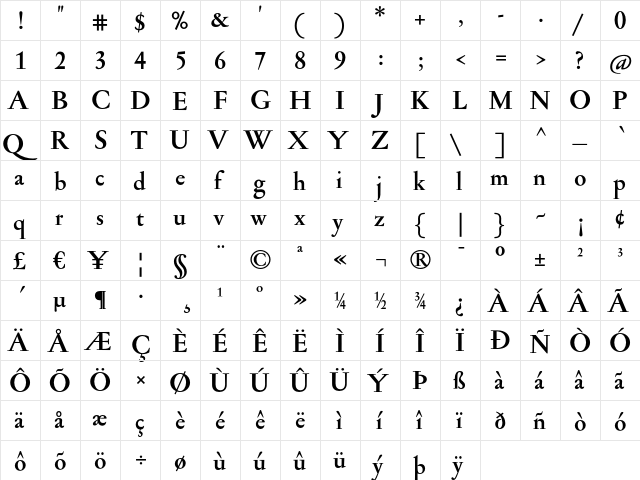
Jannon Ant Bold
| Foundry | Frantisek Storm, stormtype.com |
Design Context for Jannon Ant Typeface
Jannon Ant is a composed and adaptable typeface that performs quietly and consistently across a wide range of design contexts. The heavy weight commands attention and anchors typographic hierarchies.
Pro Tip: Use Jannon Ant in both headline and body roles to test its range before committing to a single application.